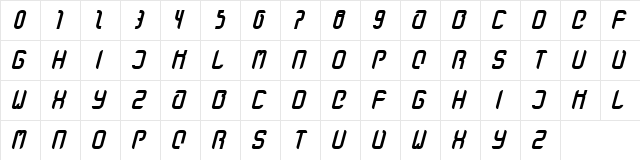
stanze fett Regular Free Font
stanze  fett Regular
Design Context for stanze fett
stanze fett is a composed and adaptable typeface that performs quietly and consistently across a wide range of design contexts.